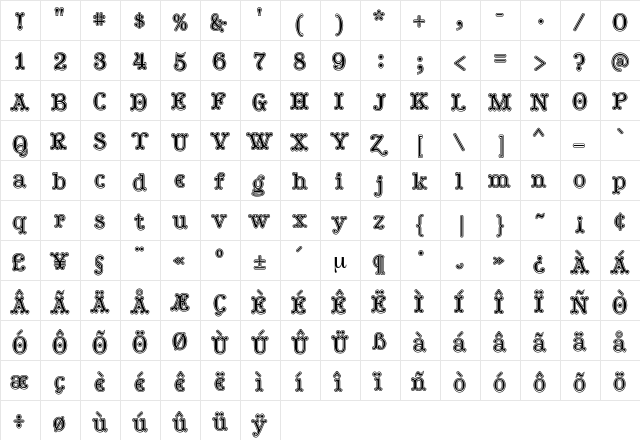
Hallodolly Regular
Design Context for Hallodolly Typeface
Hallodolly is a composed and adaptable typeface that performs quietly and consistently across a wide range of design contexts.